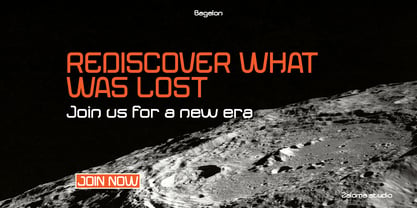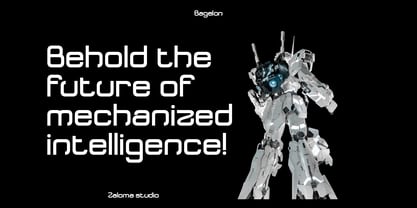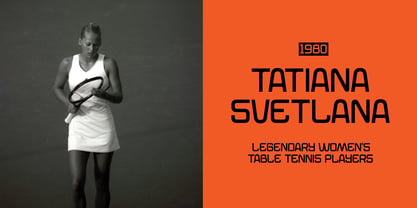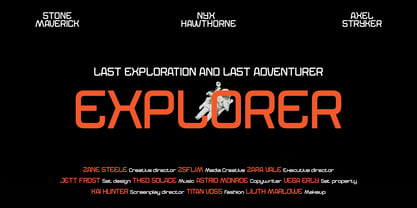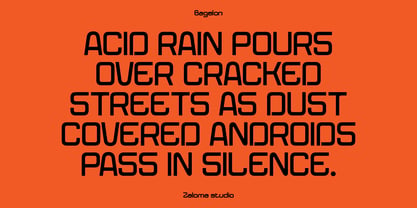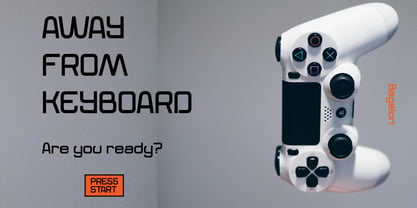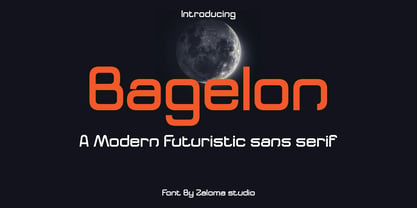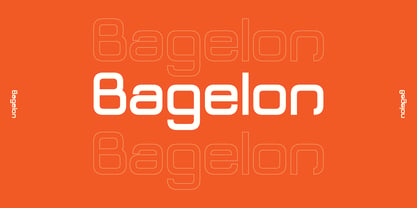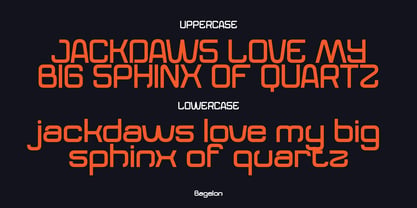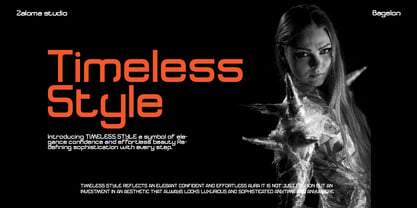
Bagelon
by Zaloma Studio
The Bagelon Font Family was designed by Mahyudi and published by Zaloma Studio. Bagelon contains 1 styles. More about this family
Bagelon: A Futuristic Sans-Serif Typeface
Bagelon is a sleek and modern sans-serif font designed for futuristic aesthetics. Its bold yet smooth letterforms make it a perfect choice for high-tech branding, sci-fi projects, and digital interfaces.
Key Features:
- Futuristic Appeal – Inspired by modern technology and science fiction, Bagelon’s design feels ahead of its time.
- Geometric & Minimalist – Each character is crafted with a balanced structure, featuring smooth curves and rounded corners that enhance readability.
- Bold & Eye-Catching – The thick, uniform strokes ensure high visibility, making it ideal for headlines, posters, and UI/UX design.
- Versatile Usage – Perfect for gaming logos, space-themed visuals, cyberpunk artwork, and technology-based branding.
Perfect for Projects Like:
- Sci-fi book covers
- Tech startup branding
- UI/UX design
- Movie posters (Cyberpunk, AI, Futuristic themes)
- Digital advertisements
With its cutting-edge and futuristic style, Bagelon is a font that brings innovation to any design.
Designers: Mahyudi Mahyudi
Foundry: Zaloma Studio